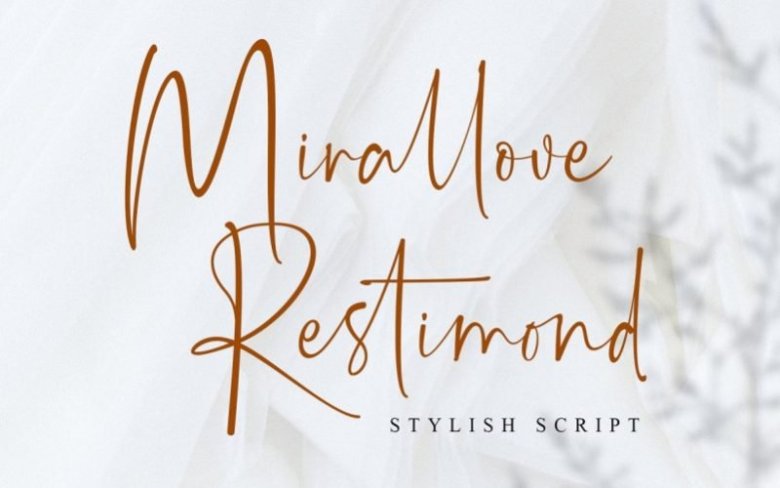
Mirallove Restimond Handwritten Font
Mirallove Restimond is a new casual modern font that is very perfect for branding, wedding designs, quotes, posters, business cards, logotype, display, etc.